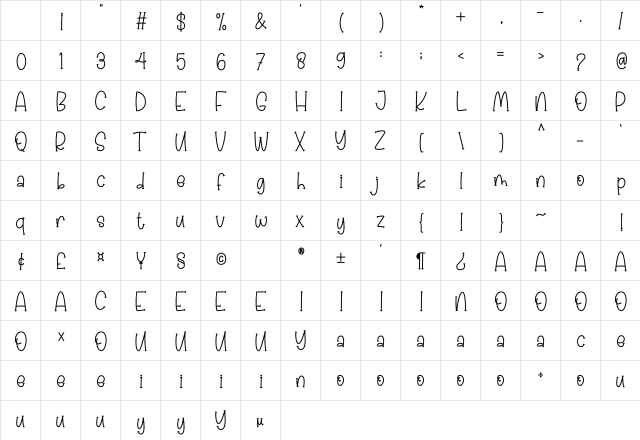
Complete Twister Candy Regular glyph index. Displaying only characters natively supported by Twister Candy Regular font.
Twister Candy is a composed and adaptable typeface that performs quietly and consistently across a wide range of design contexts.